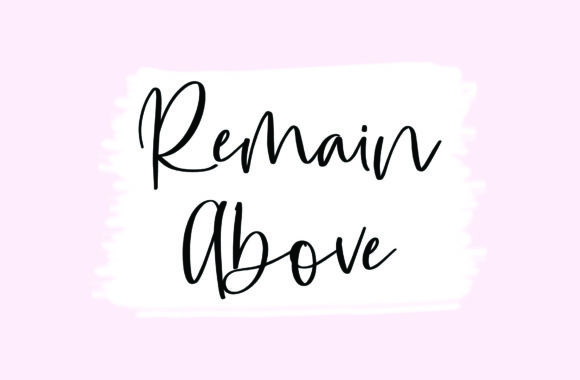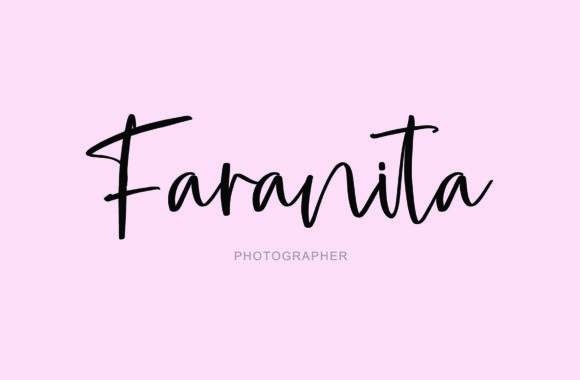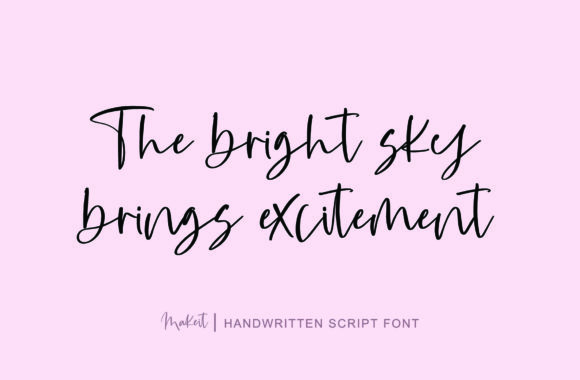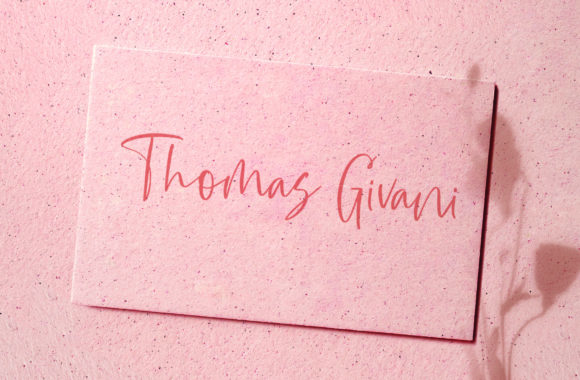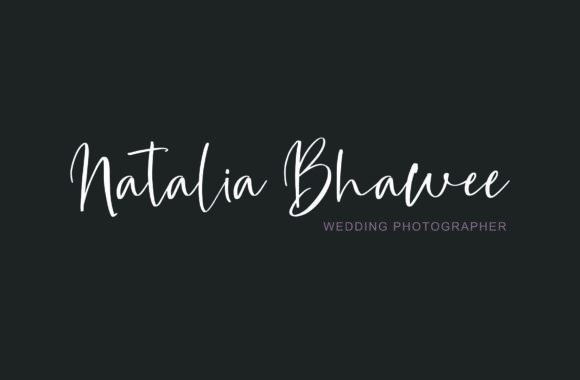
Introduction to Makeit Font Font
Fonts play a crucial role in design, and the Makeit Font font is a typeface that brings both character and versatility to any project. Whether you’re working on a branding project, a website, or a print design, the Makeit Font font offers a unique style that can elevate your work.
Makeit is a relaxed and adaptable script font.
It has a modern yet whimsical style and it will undoubtedly immerse your designs into a magical world .
Key Features of Makeit Font Font
Why Choose Makeit Font Font?
The Makeit Font font is more than just a typeface – it’s a design tool that helps you communicate your message with style and clarity. Its unique character set and versatile design make it suitable for a wide range of applications, from elegant invitations to bold headlines.
With its carefully crafted letterforms and balanced proportions, the Makeit Font font ensures readability and visual appeal across all mediums.
What makes Makeit Font font special?
The Makeit Font font stands out with its unique design, exceptional readability, and versatility across various design applications.